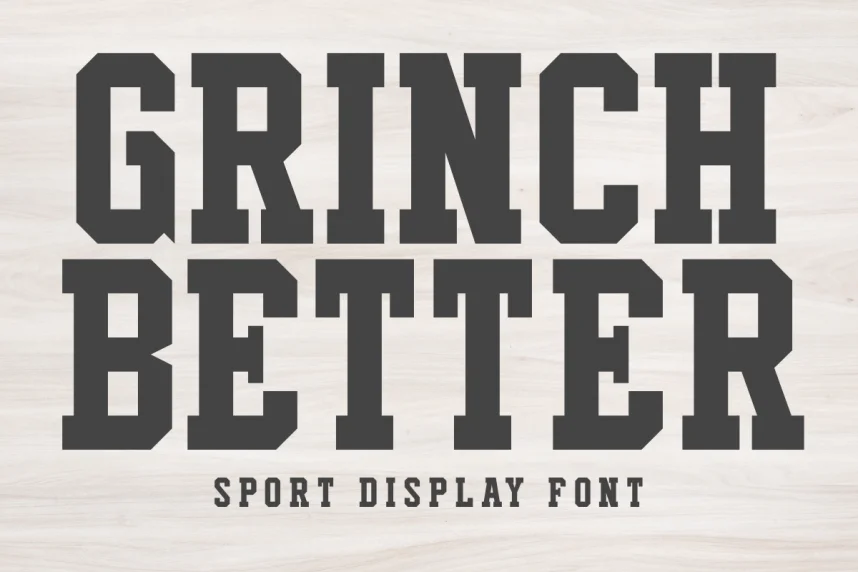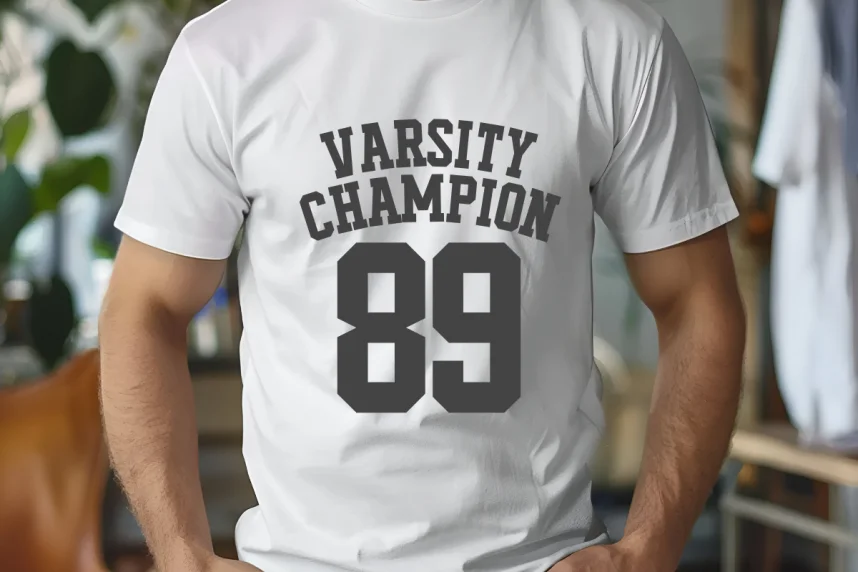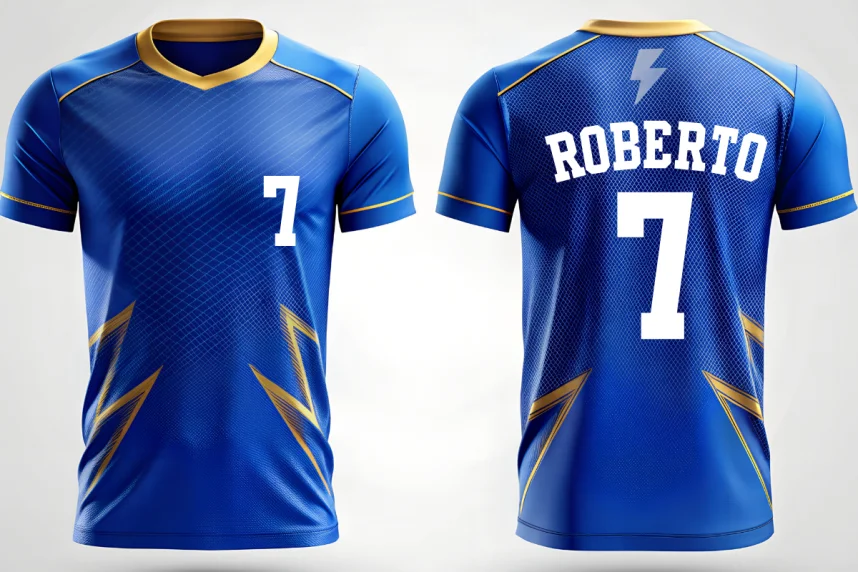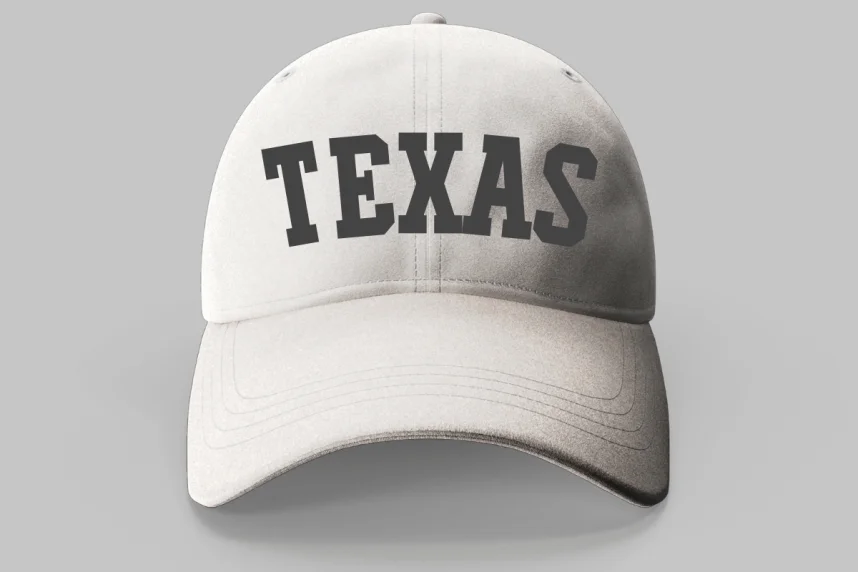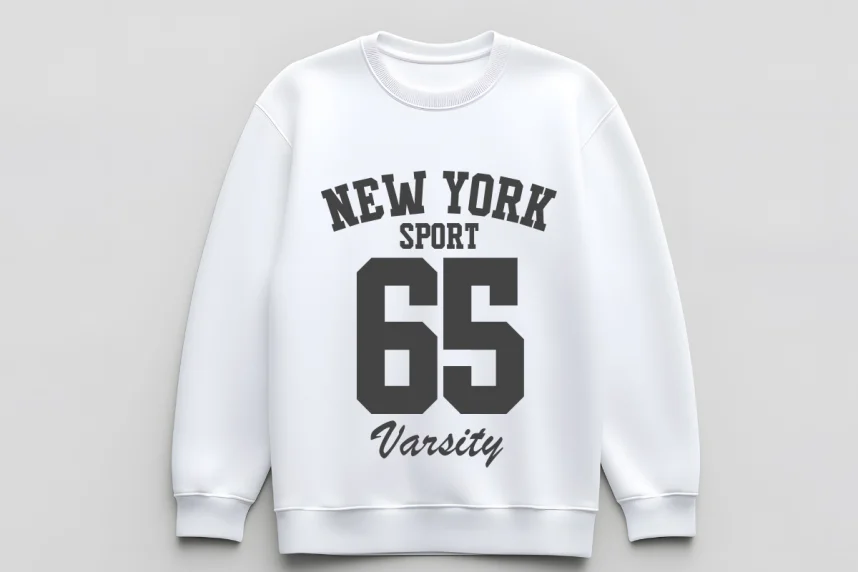
Grinch Better Font targets expressive headline design without losing legibility. Many decorative fonts struggle in posters and social graphics where clarity matters.
Grinch Better is a display font with irregular shapes and bold strokes. The letterforms feature playful curves while maintaining consistent structure. The font performs best at large sizes.